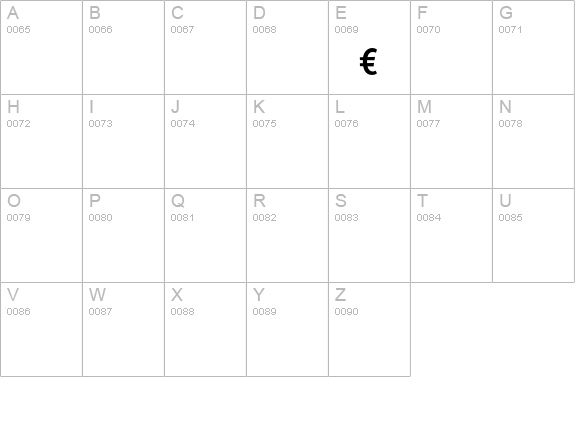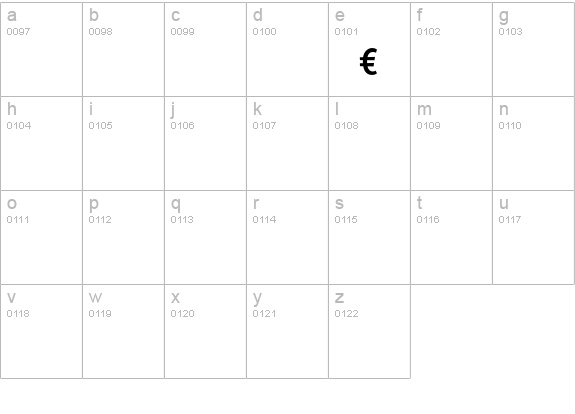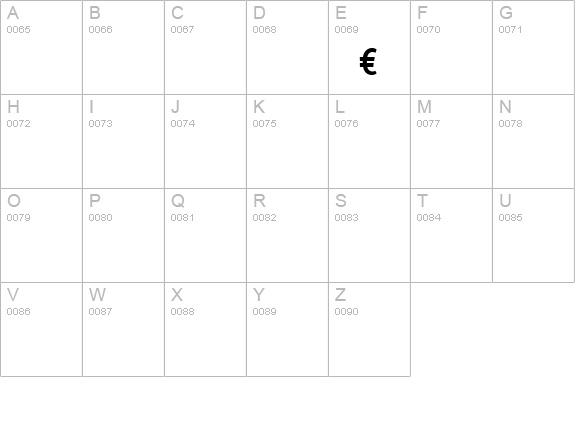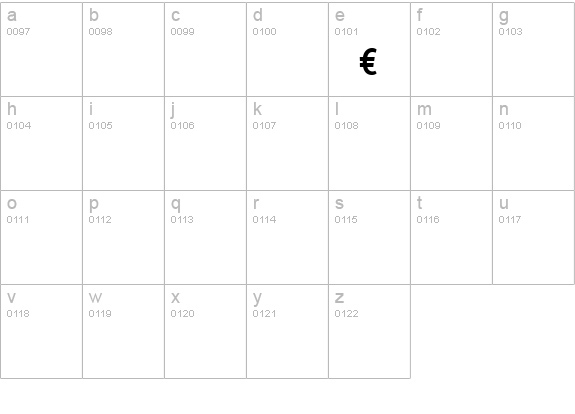
PedestriaMVB-Euro-Medium is a balanced, medium-weight variant in the PedestriaMVB typeface family \xE2\x80\x94 well suited to sub-headlines, navigation, and balanced editorial work.
PedestriaMVB-Euro-Medium font is a stunning and versatile typeface that combines elegance with modernity. Its sleek and sophisticated design makes it perfect for a wide range of projects, from branding and advertising to editorial and web design. With its medium weight and clean lines, PedestriaMVB-Euro-Medium exudes a sense of professionalism and reliability. It is highly legible and easily readable, making it ideal for both headlines and body text. The careful attention to detail in this font ensures that each character is balanced and visually pleasing, adding a touch of refinement to any project. One of the most appealing aspects of PedestriaMVB-Euro-Medium font is that it is available for free. Yes, you read that right! This exceptional typeface can be freely downloaded at FontsMarket.com, allowing designers and enthusiasts alike to access its beauty and functionality without any cost. This generous offer makes it even more accessible and opens up endless possibilities for creativity. Whether you are working on a personal project or a professional assignment, PedestriaMVB-Euro-Medium font will elevate your designs to new heights. Its versatility and timeless appeal make it a valuable asset in your font library. With its free availability, there is no reason not to explore the possibilities and embrace the elegance of PedestriaMVB-Euro-Medium font.